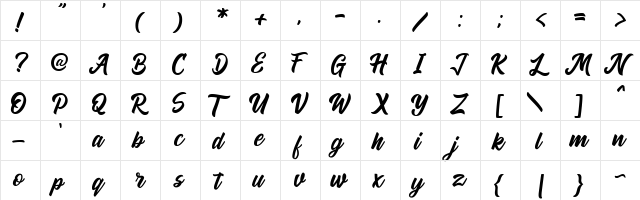
Andora Demo Regular
Design Context for Andora Demo Typeface
Andora Demo is a composed and adaptable typeface that performs quietly and consistently across a wide range of design contexts.